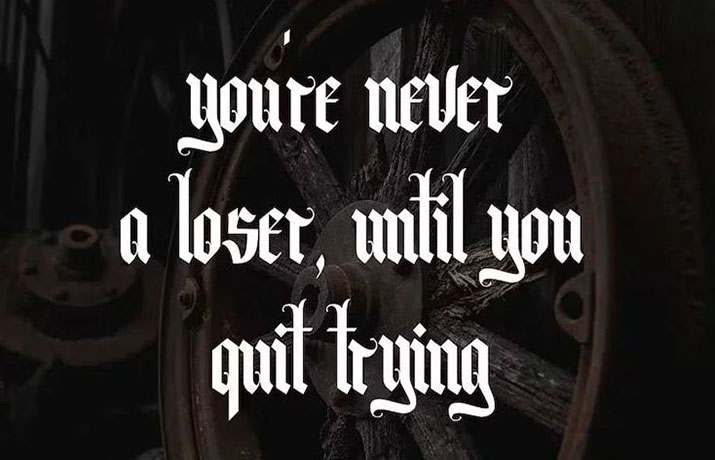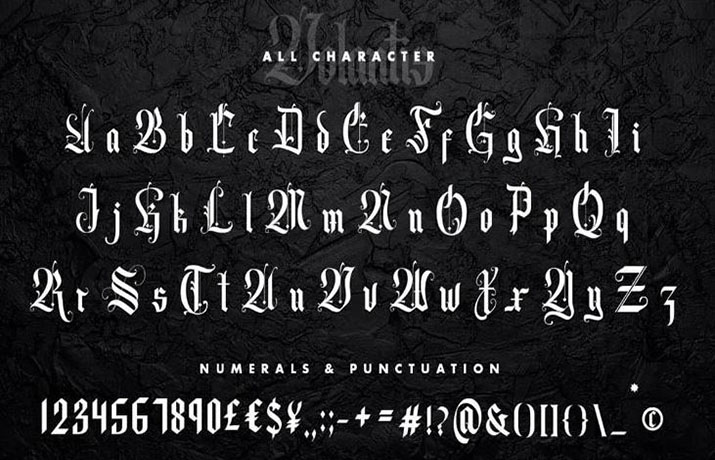
Volantis Font is a gothic medieval typeface that comes with a unique blend of medieval flair and contemporary edge. It was designed and published by Typotopia Studio.
This blackletter typeface is perfectly made to be applied especially for logos, Posters, stationery, magazines, menus, books, invitations, greeting cards, labels, apparel, marketing, business cards, etc.
The font features bold and sharp letterforms. Its thick characters and sweeping curves dance like flames on a blacksmith’s forge.
- You can use this distinctive typeface to make a variety of items, including book covers, certificates, distinctive signs, game graphics, product packaging, special event cards, social media banners, flyers, brochures, movie posters, and special quotes.